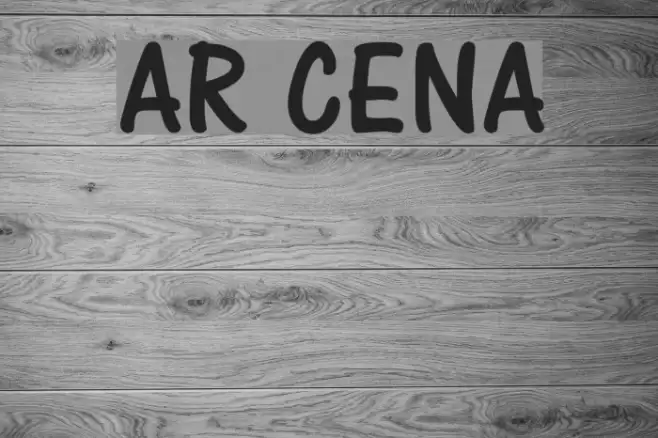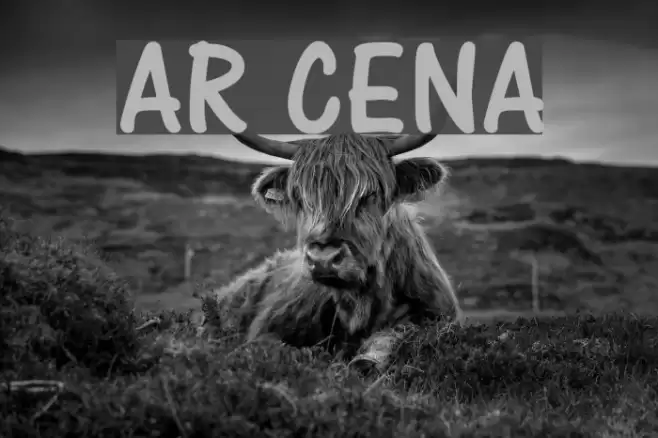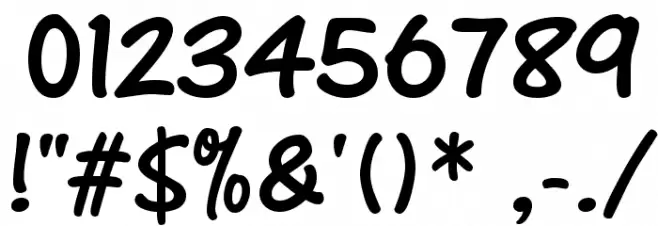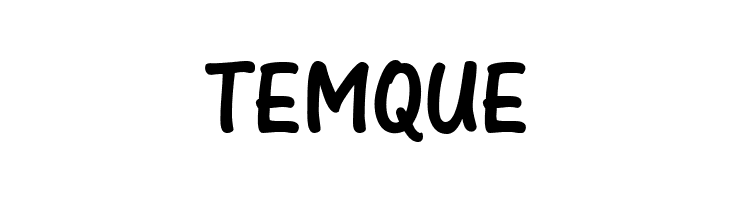
AR CENA Font
AR CENA Description
This font features a playful and casual handwritten style, characterized by its rounded and slightly irregular letterforms. The strokes are bold and consistent, giving it a friendly and approachable appearance. The uppercase and lowercase letters maintain a uniform style, with a slight slant that adds to its informal charm. Numbers and special characters are designed to match the overall aesthetic, making it versatile for various uses. The font's design is well-suited for projects that require a personal touch, such as invitations, greeting cards, or playful branding.
A playful, handwritten font with bold, rounded strokes and a casual style from Uncategorized fonts.
- Proposed Projects: Ideal for invitations, greeting cards, playful branding, and informal designs.
- Overall Style: Casual
- Use Case: Headlines, Logos, Informal Text